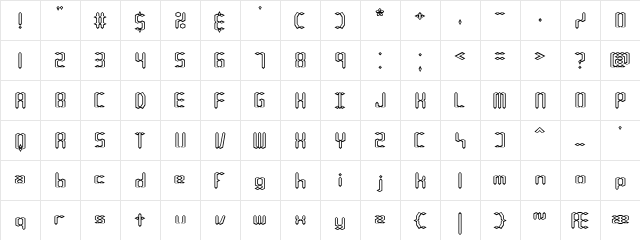
Complete Compliant Confuse 1o (BRK) Normal glyph index. Displaying only characters natively supported by Compliant Confuse 1o (BRK) Normal font.
Compliant Confuse 1o (BRK) is a composed and adaptable typeface that performs quietly and consistently across a wide range of design contexts.